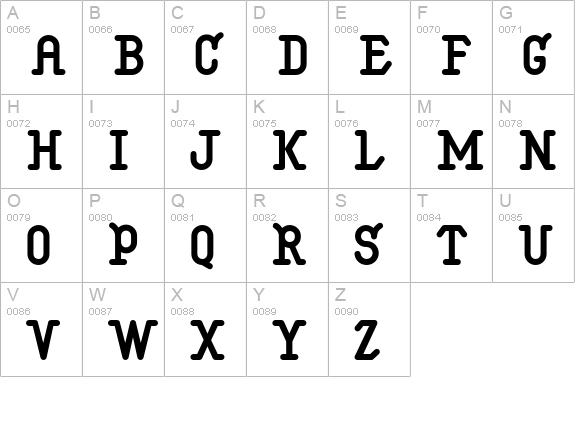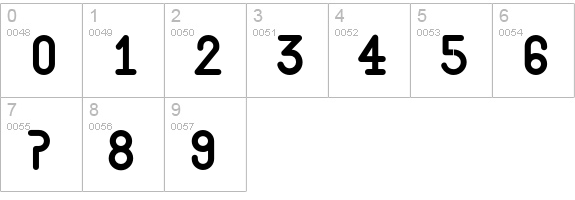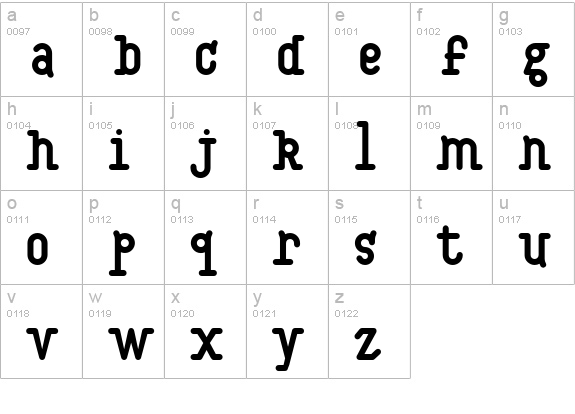
E-Feet Font Details
Introducing E-Feet Font, an incredibly versatile and visually captivating typeface that is sure to make a bold statement in any design project. This unique font combines sleek and modern aesthetics with a playful twist, making it perfect for a wide range of applications. E-Feet Font is designed with attention to detail, showcasing a harmonious balance between elegance and creativity. Its clean lines and distinctive characters effortlessly capture attention, making it ideal for logo designs, branding materials, advertisements, websites, and more. What sets E-Feet Font apart is not only its exceptional design, but also its availability as a free download. Yes, you read that right - this remarkable font is freely accessible to everyone at FontsMarket.com. Whether you're a professional designer or simply a typography enthusiast, you can now effortlessly add this stunning font to your collection without any cost. As a free font, E-Feet Font offers incredible value without compromising on quality. Compatible with a variety of software applications, this font allows you to unleash your creativity and elevate your designs to new heights. Its versatility ensures that it can be utilized in both print and digital media, providing endless possibilities for your projects. With E-Feet Font, the possibilities are truly limitless. Whether you're looking to create eye-catching headlines, captivating social media graphics, or memorable packaging designs, this font will undoubtedly leave a lasting impression. Its bold and expressive characters will effortlessly convey your message and captivate your audience. So, don't miss out on this incredible opportunity to enhance your design projects with E-Feet Font. Download it for free today at FontsMarket.com and unlock a world of creative possibilities. Let your imagination run wild and make a statement with this remarkable font that combines elegance, creativity, and accessibility all in one.